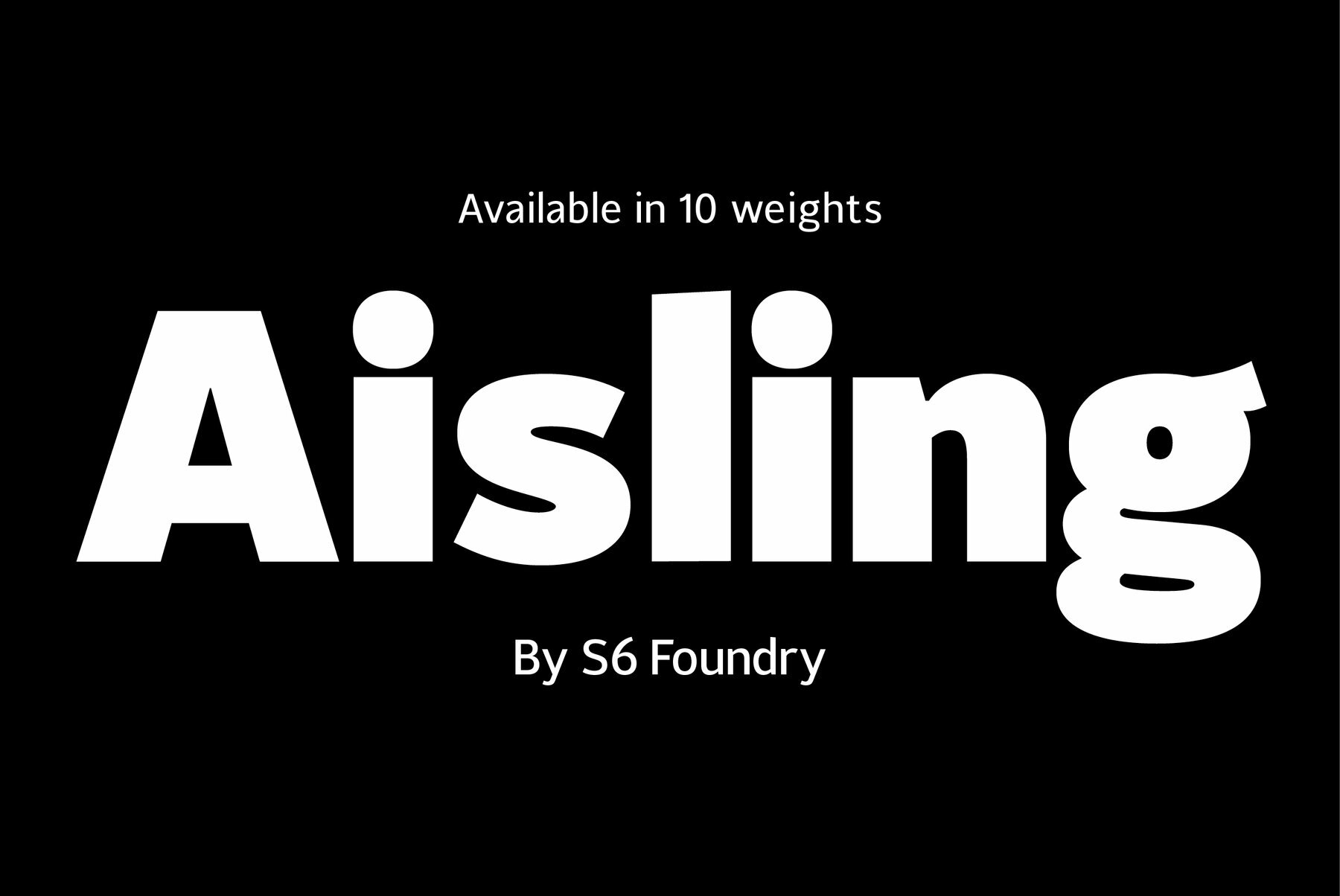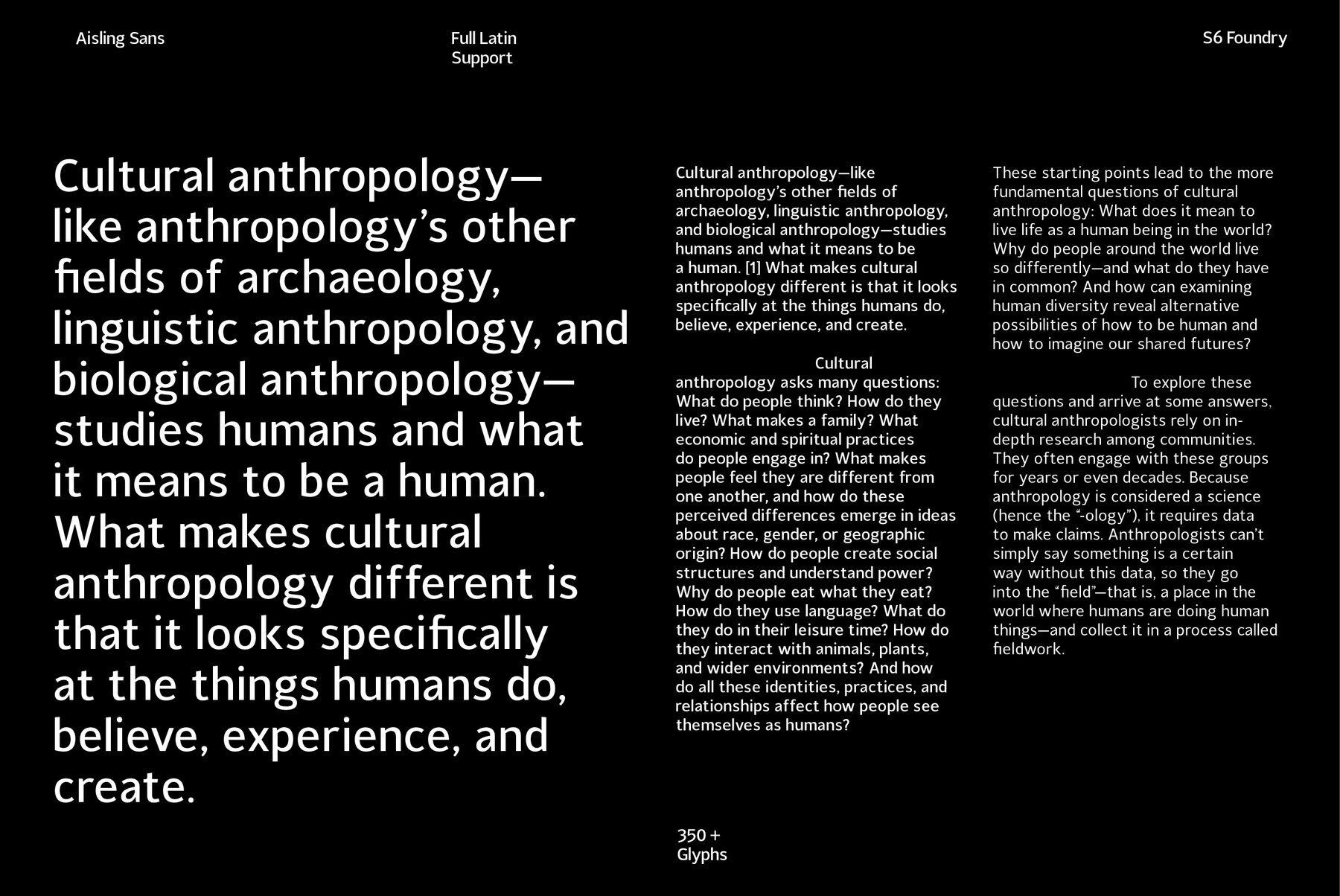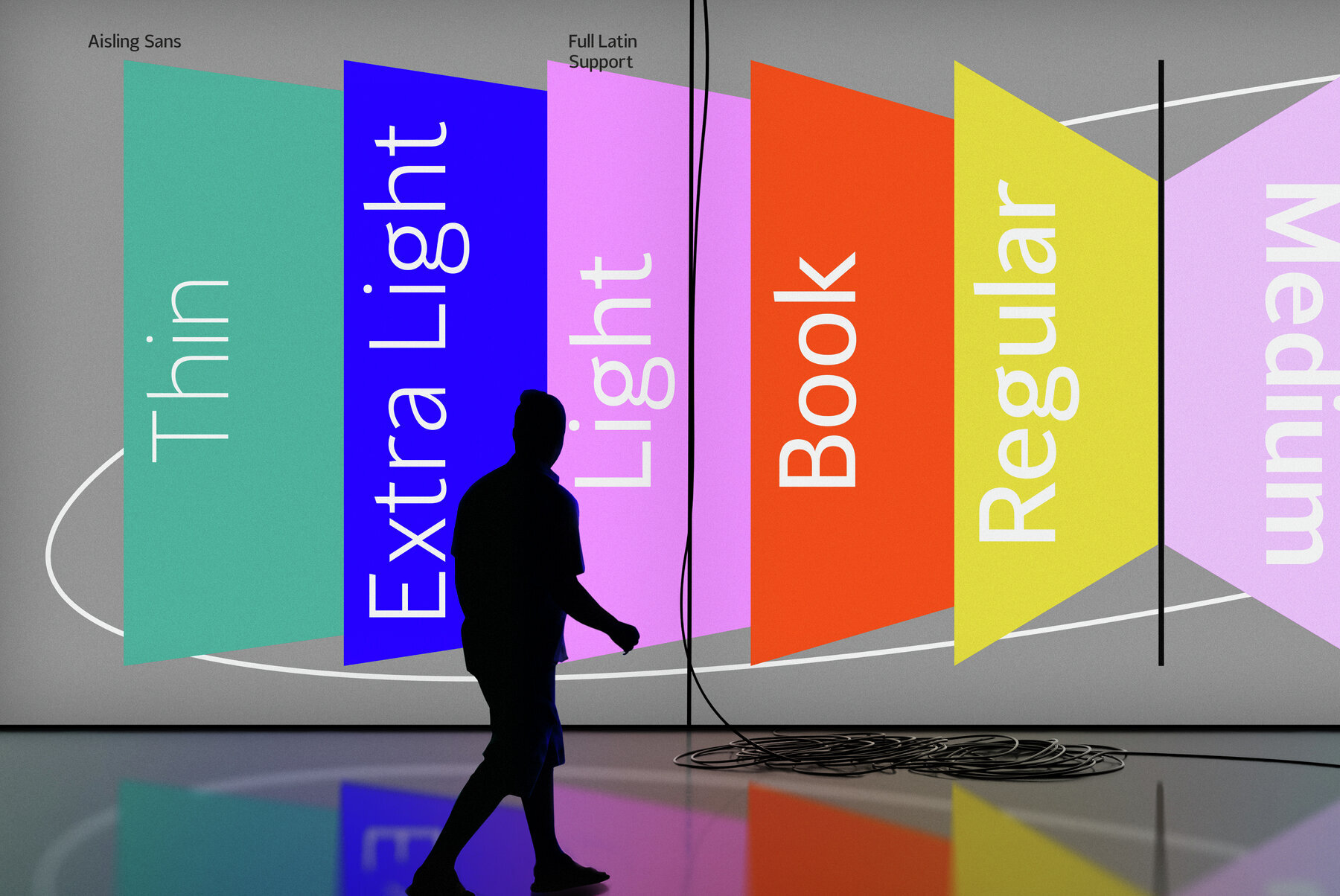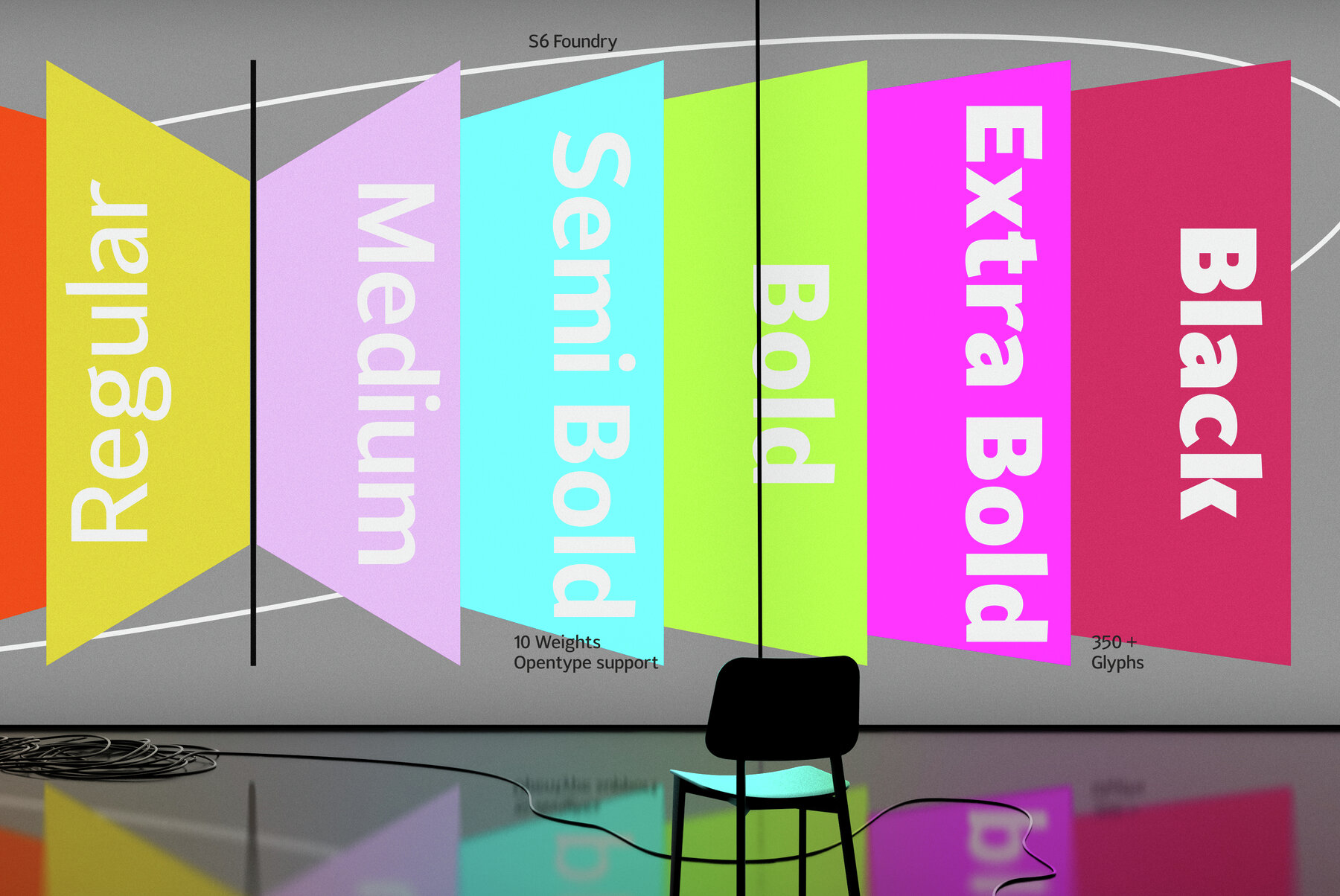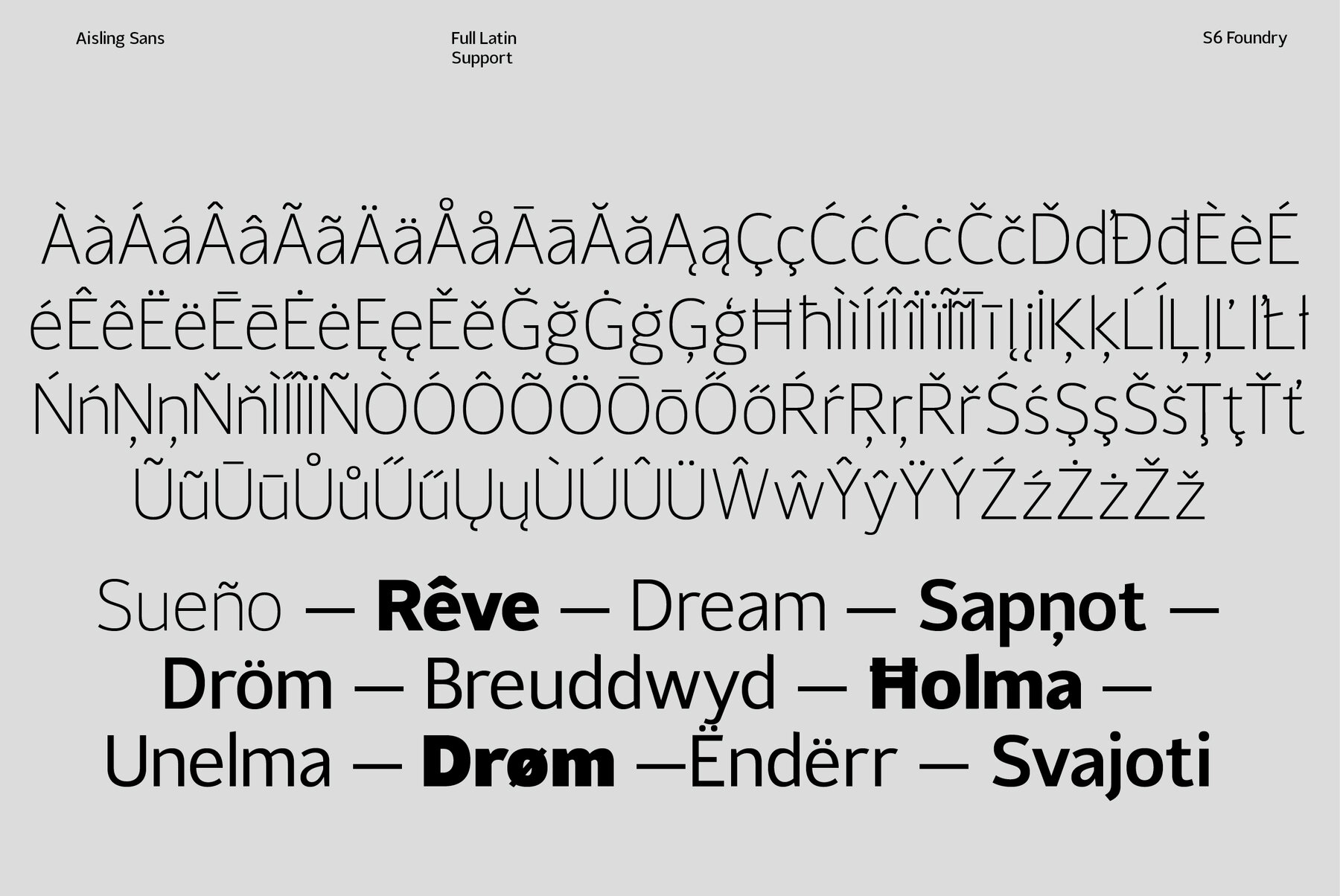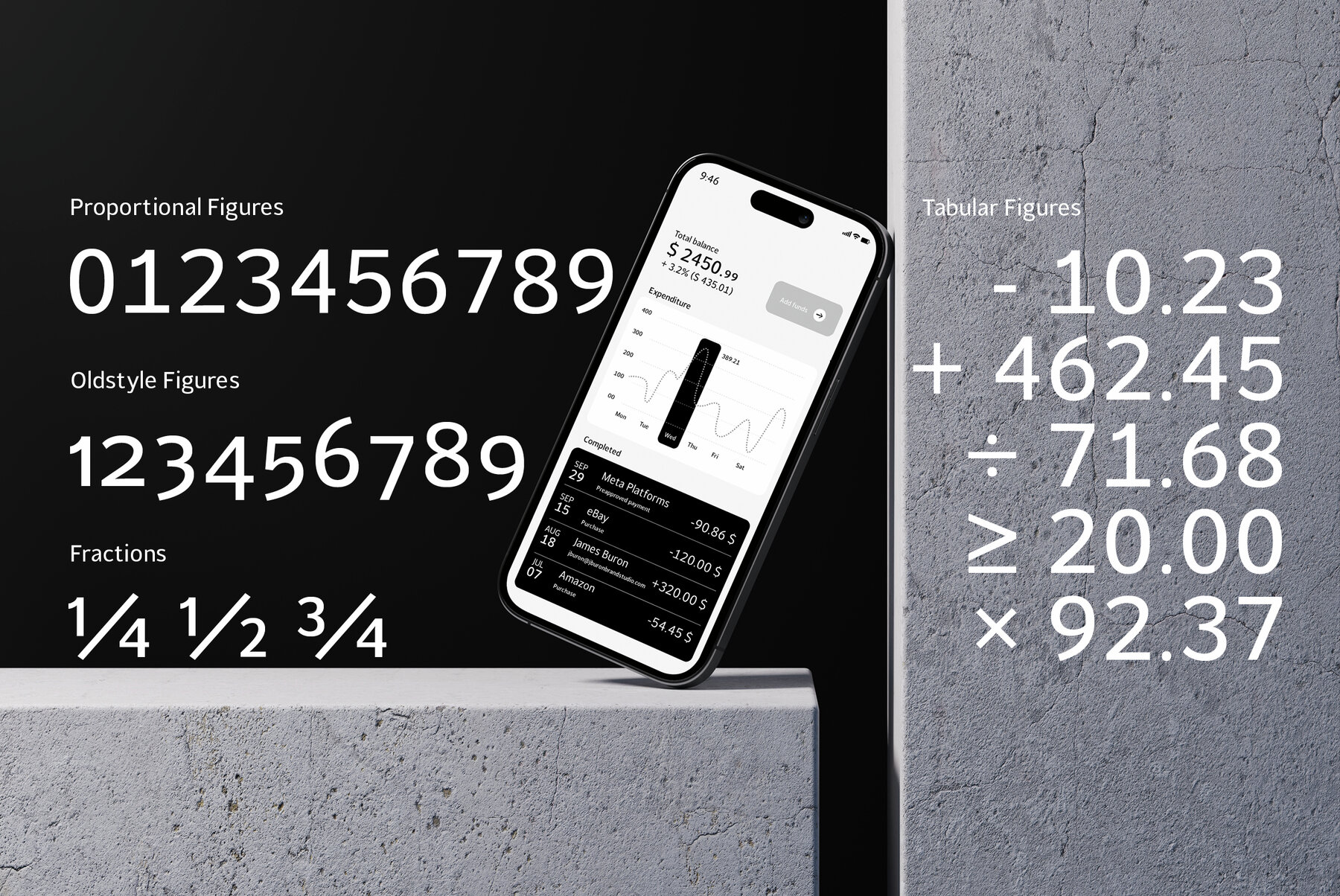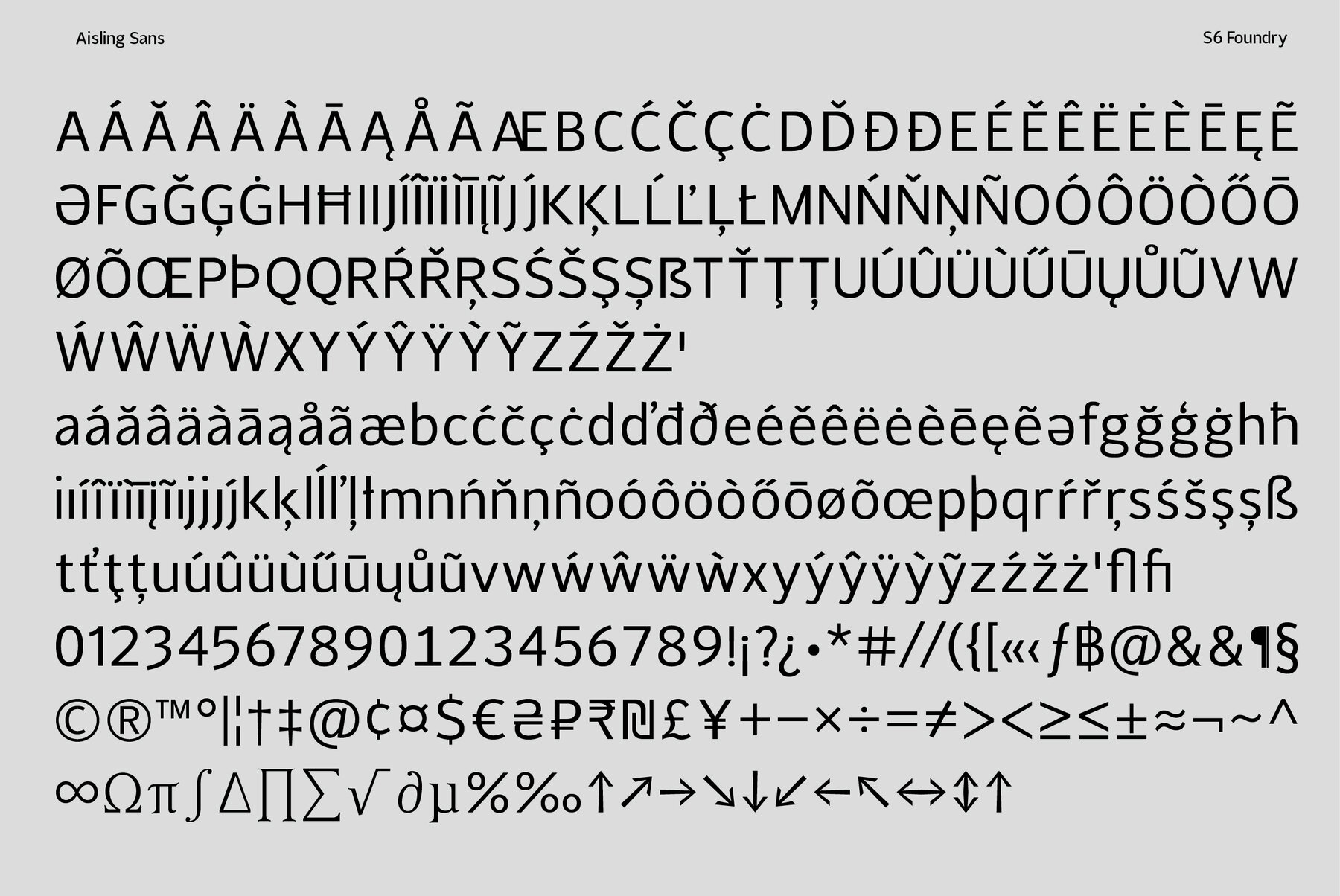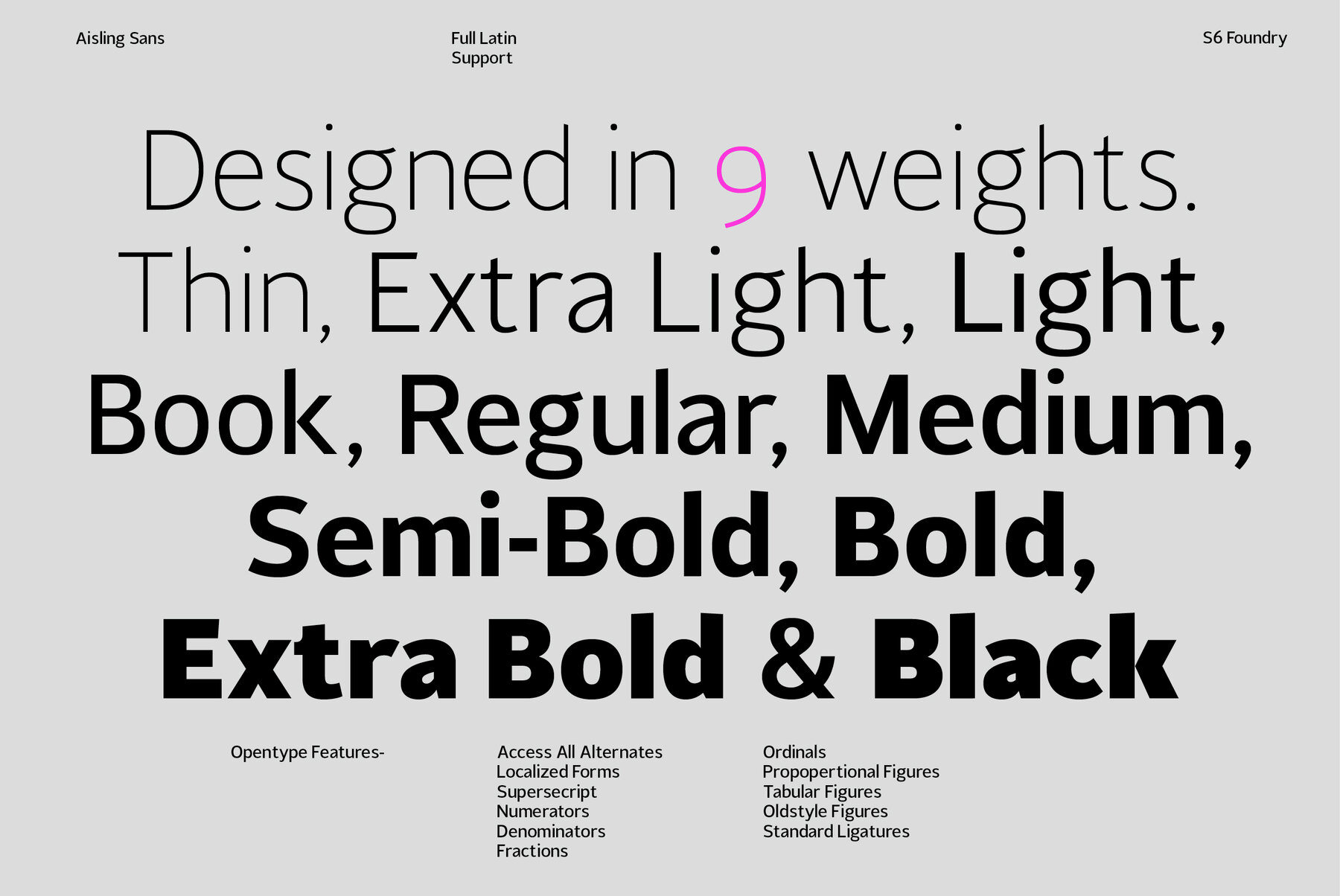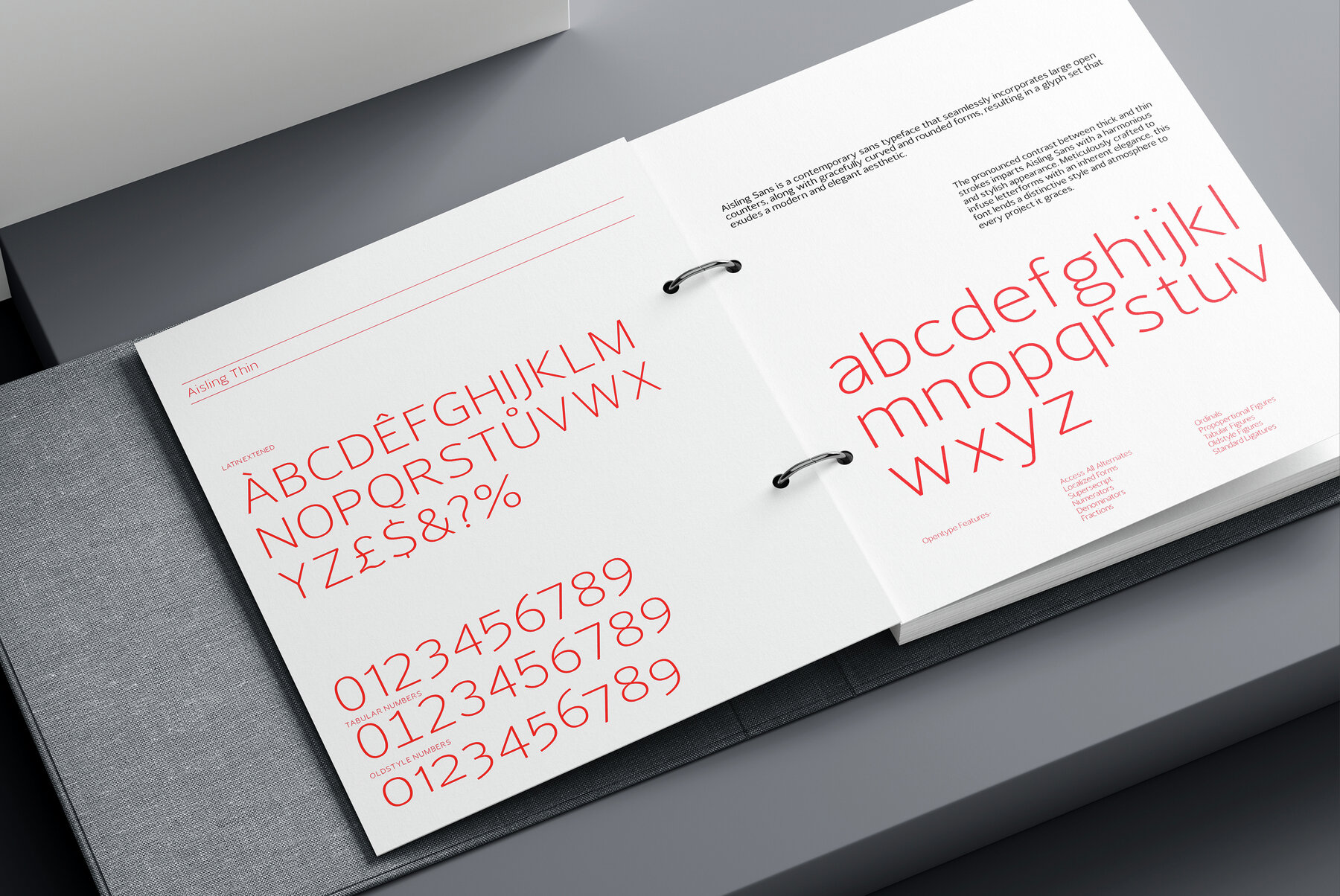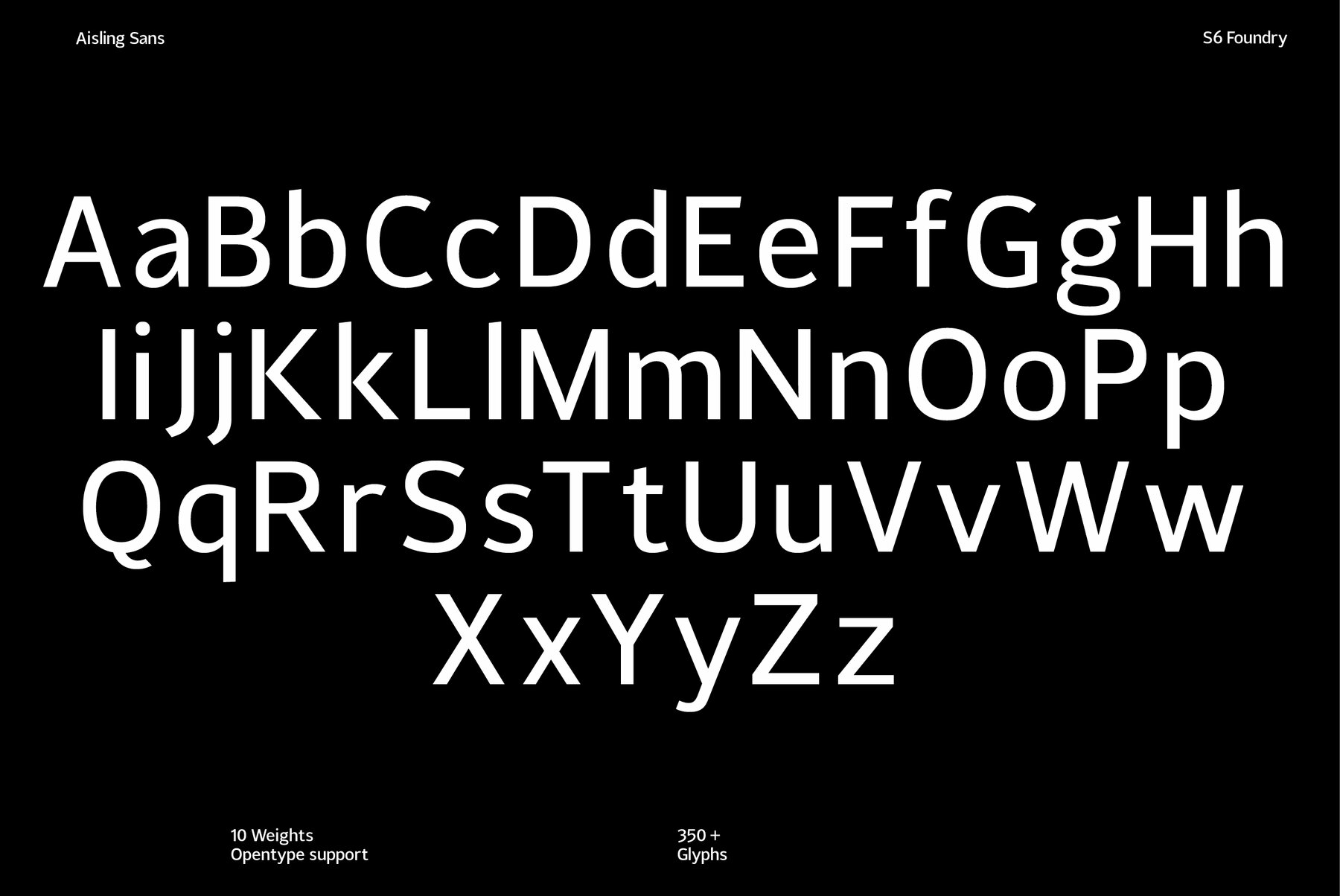
Aisling Sans epitomizes enduring modernity in typography, radiating both style and individuality. Drawing inspiration from the impartiality of Swiss-type design, this font is classically proportioned with contemporary, distinctive shapes and curves and ductus, a wide overall stance, and large open counters that help legibility. It provides impeccable visual uniformity for branding and communication endeavors. Aisling Sans incorporates OpenType features, supports all Latin Extended languages, and encompasses a versatile range with ten weights and a Variable font version.